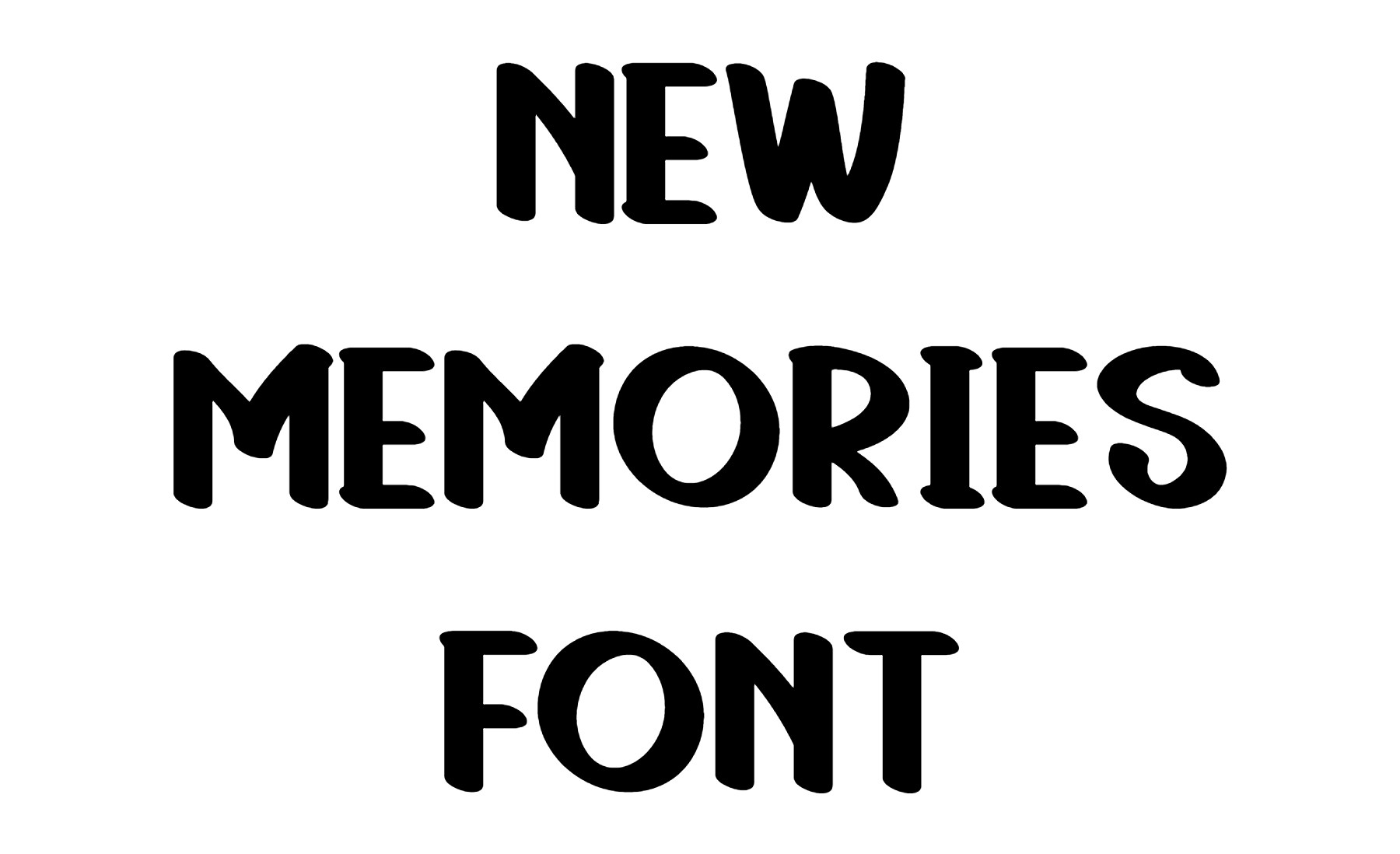
New Memories
New Memories is a fancy font created by Seemly Fonts (2021). Bold and full of character, it's built to stand out rather than blend in. You can download it for free and test it with your own words in the preview above.
With complete upper and lowercase letters and all ten digits, New Memories is ready for real wording, not just a single headline. Everyday marks like &, !, ? and @ are there too. Thanks to its accented letters, it also works for Spanish, French, German, Portuguese and Italian, not just English.
New Memories is a natural fit for posters, logos and eye-catching headlines. Use it for one standout word or headline and let simpler fonts handle the rest.
Yes. New Memories includes the accented letters needed for Spanish, French, German, Portuguese and Italian, so it works for more than just English.